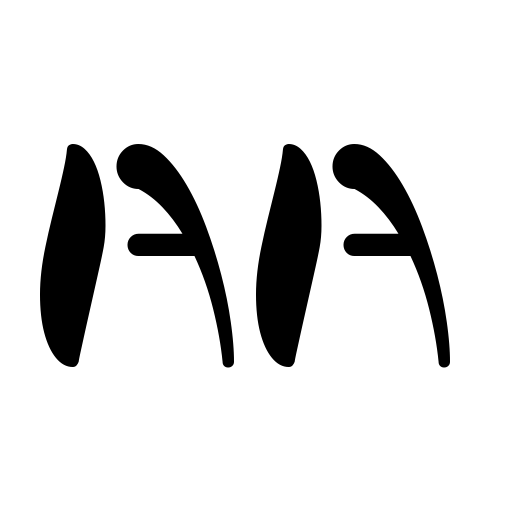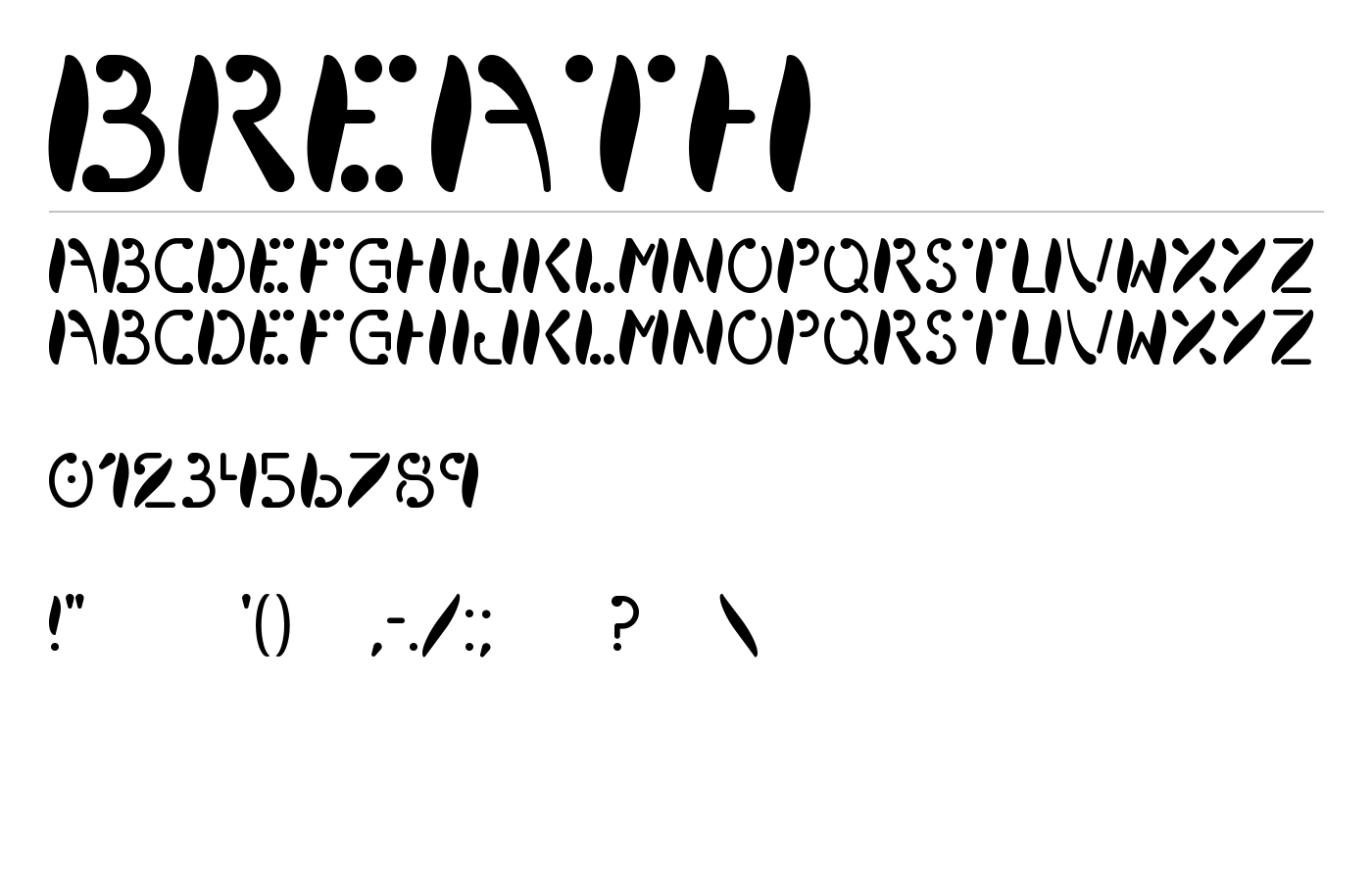
Breath Font is a bold, artistic sans serif with a playful and organic vibe, featuring thick, rounded strokes interrupted by small, circular gaps that give it a unique, almost hand-crafted feel. Its irregular shapes and high contrast between solid and void areas make it eye-catching and perfect for creative branding, posters, and headlines where a modern, quirky personality is desired. This font stands out by blending boldness with a whimsical touch, lending itself well to projects seeking a fresh, innovative look.
Breath Font